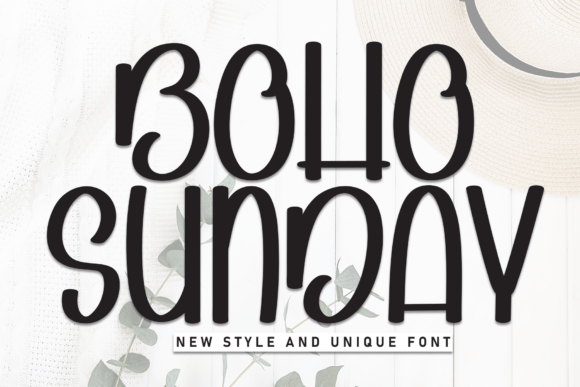
The Ultimate Guide to Boho Sunday Font: Elevate Your Design with a Fresh, Friendly Vibe
I’ll never forget the design struggle is real! I was working on a packaging project for a local artisan food brand, and I just couldn’t find the right font to capture their laid-back, yet polished vibe. That was until I stumbled upon Boho Sunday Font. With its clean lines, relaxed structure, and fresh, friendly feel, it was love at first sight! In this article, we’ll dive into the world of Boho Sunday Font, exploring its features, uses, and everything in between.
An Honest Review of Boho Sunday Font
So, what makes Boho Sunday Font so special? Let’s break it down:
• ✨ Clean and relaxed design: Perfect for creating a friendly and approachable atmosphere in your designs.
• ✅ Highly versatile: Works beautifully for packaging, posters, social media graphics, and more.
• ✅ Easy to read: Even at smaller sizes, Boho Sunday Font remains clear and legible.
• ✨ Polished appearance: Adds a touch of sophistication to your designs without feeling too formal.
Now, no font is perfect, and Boho Sunday Font has a few minor quirks:
• 🤔 Limited language support: While Boho Sunday Font covers a range of languages, it may not support every language or script.
• ⚠️ No italic or oblique versions: If you need an italic or oblique version, you might need to rely on a different font or creative workaround.
The Backstory Behind Boho Sunday Font
Boho Sunday Font was designed with the creative community in mind. Its creator aimed to craft a font that embodies a fresh, friendly vibe while maintaining a polished appearance. Inspired by the laid-back atmosphere of a bohemian Sunday, this font is perfect for designers looking to add a touch of warmth and approachability to their projects.
What is Boho Sunday Font best used for? Boho Sunday Font is ideal for packaging, posters, social media graphics, and any project requiring a fresh, friendly vibe.
Is Boho Sunday Font suitable for body text? While Boho Sunday Font is primarily a display font, it can be used for short paragraphs of body text, especially at larger sizes.
Does Boho Sunday Font support OpenType features? Yes, Boho Sunday Font supports OpenType features like ligatures and stylistic alternates, allowing for more creative flexibility.
And there you have it! Boho Sunday Font is a versatile, fresh, and friendly display font perfect for a wide range of design projects. With its clean lines, relaxed structure, and polished appearance, it’s sure to become a staple in your font library.